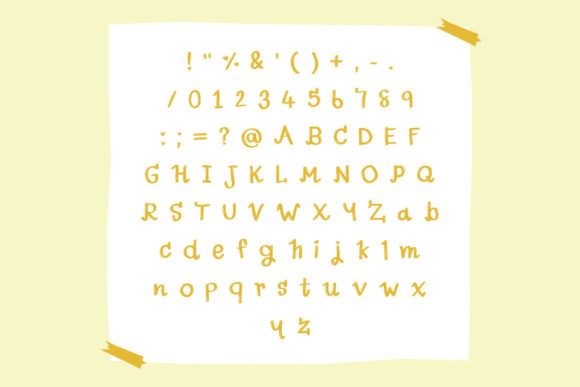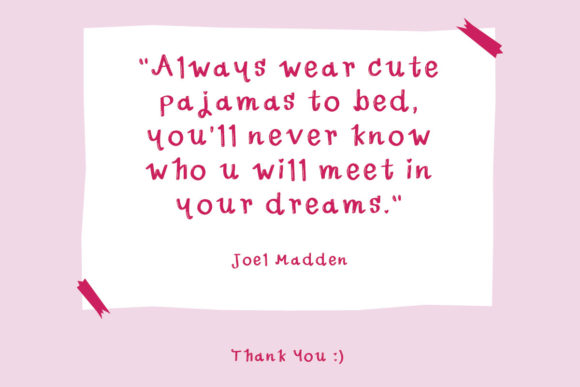
Cute Doodle Font: Add a Touch of Youth and Joy to Your Designs
Are you looking for a font that can add a playful and youthful touch to your designs? Look no further than the Cute Doodle font! This adorable and friendly display font is perfect for party invitations, swimming gatherings, and any other design that requires a dash of fun and joy.
What is Cute Doodle Font?
Cute Doodle is a display font that features a unique and playful design. Its adorable and friendly style makes it perfect for designs that require a touch of youth and joy. The font is highly legible and can be used for a variety of purposes, from party invitations to social media graphics.
Key Features of Cute Doodle Font
- Adorable and Friendly Design: The Cute Doodle font features a unique and playful design that is sure to capture the attention of your audience.
- Highly Legible: The font is highly legible, making it perfect for use in a variety of designs, from party invitations to social media graphics.
- Playful and Youthful Touch: The Cute Doodle font adds a playful and youthful touch to any design, making it perfect for designs that require a dash of fun and joy.
Uses of Cute Doodle Font
The Cute Doodle font can be used for a variety of purposes, including:
- Party Invitations: The font is perfect for party invitations, adding a playful and youthful touch to your designs.
- Swimming Gatherings: The font is also great for swimming gatherings, adding a fun and playful touch to your designs.
- Social Media Graphics: The font can be used to create social media graphics that are sure to capture the attention of your audience.
- Crafting Projects: The font is also great for crafting projects, such as scrapbooking and card making.
Tips for Using Cute Doodle Font
Here are a few tips for using the Cute Doodle font:
- Use it with Bright Colors: The font looks great with bright colors, so don’t be afraid to experiment with different color combinations.
- Pair it with Other Fonts: The font can be paired with other fonts to create a unique and interesting design.
- Experiment with Different Sizes: The font can be used in a variety of sizes, so experiment with different sizes to find the one that works best for your design.
The Cute Doodle font is a great addition to any design project that requires a playful and youthful touch. Its adorable and friendly design makes it perfect for party invitations, swimming gatherings, and any other design that requires a dash of fun and joy. With its highly legible design and ease of use, the Cute Doodle font is a great choice for designers and crafters alike.